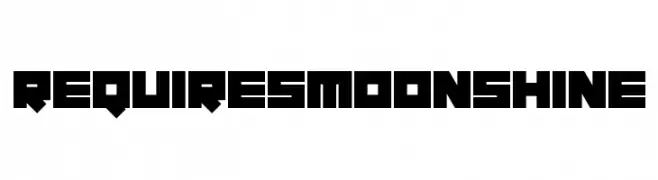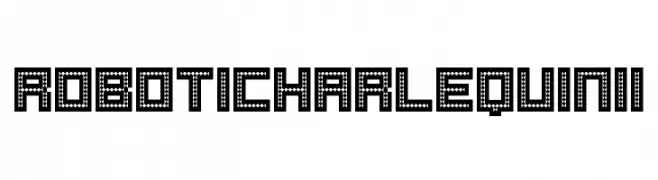
A refined serif font with a light, elegant style and modern readability.
A bold serif font with a classic and slightly whimsical style.
A classic serif font with high contrast and elegant, sharp serifs.
A bold, high-contrast serif font with dramatic and elegant features.
A classic serif font with elegant, elongated strokes and refined details.
A bold, high-contrast serif font with elegant curves and dramatic serifs.
A bold, serif font with a hand-crafted, distinctive style.
A bold, serif font with angular serifs and a strong, distinctive style.
A bold serif font with a handcrafted, slightly irregular style.
A classic serif font with elegant, sharp serifs and a traditional yet modern appeal.
A modern, geometric font with sharp angles and clean lines.
A bold, classic serif font with high contrast and elegant details.
A bold, geometric font with a futuristic and industrial design.
A playful, rounded font with bold, smooth curves and a friendly appearance.
A bold, distressed font with a rugged, vintage appearance.
A bold, artistic font with a graffiti-like, playful style.
A classic serif font with elegant, well-proportioned characters and moderate contrast.
A bold, angular font with a futuristic and aggressive design.
A display font composed entirely of diverse cross and geometric symbols.
A modern, geometric font with rounded edges and a clean, streamlined appearance.
A bold, decorative font with a festive and playful style.
A bold, geometric sans-serif font with strong, clean lines.
A clean, modern monospaced font with equal-width characters and low contrast.
A bold, playful font with rounded, thick strokes and a friendly appearance.
A modern serif font with high contrast and elegant, slender characters.
A classic serif font with bold strokes and elegant serifs.
A bold, geometric font with a three-dimensional inline style.
A bold, shadowed font with a geometric, vintage style.
A bold, geometric font with a digital, pixelated style and dynamic horizontal lines.
A bold, geometric font with a modern and edgy style.
A bold, decorative font with a three-dimensional outline effect.
A bold, italicized font with a three-dimensional outline effect.